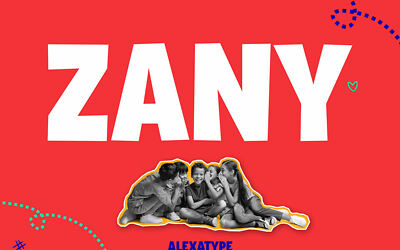
Trampoline is an all caps display typeface with slight variation between uppercase and lowercase, with playful feel but with clear read-ability.
Trampoline is suitable for any of your projects, from packaging, website headlines, poster, and so on.